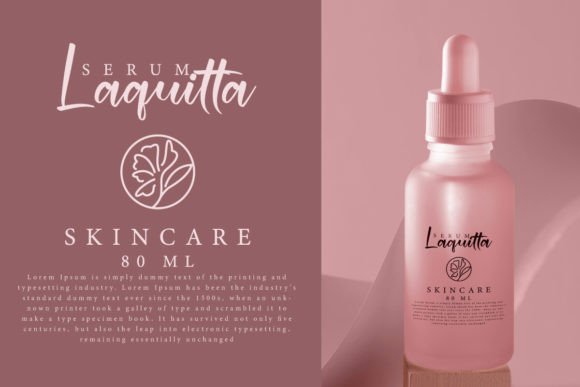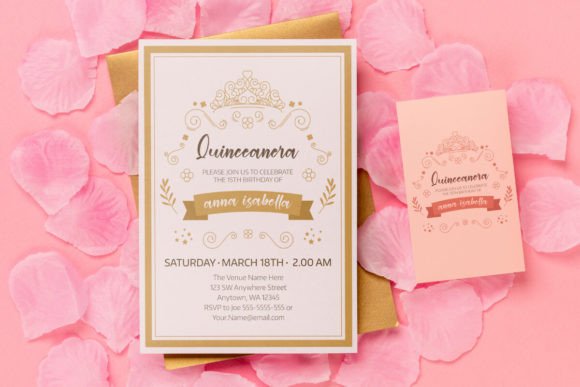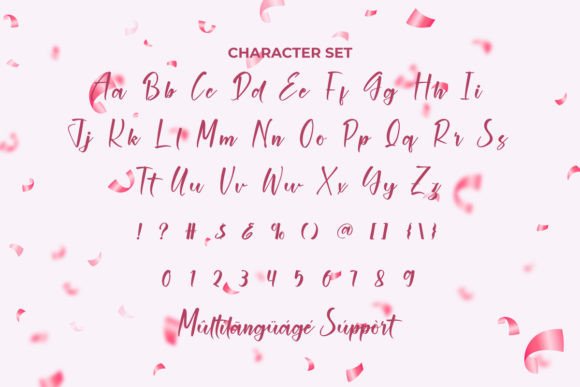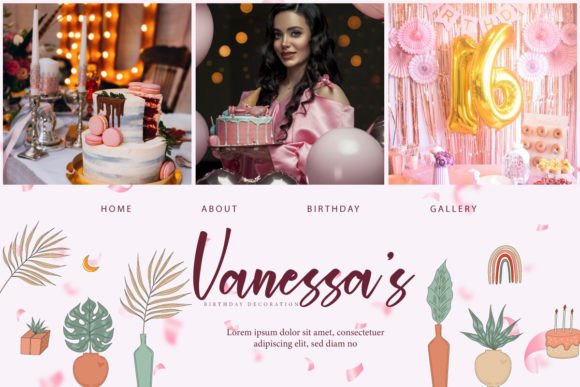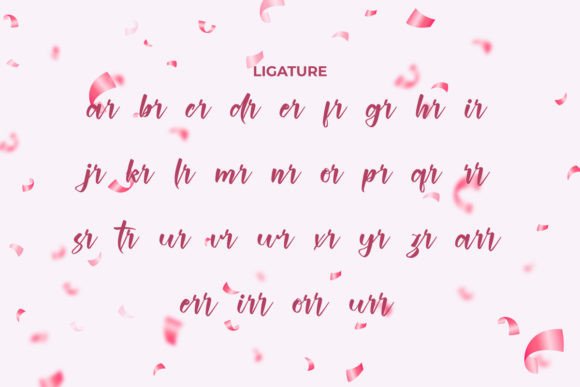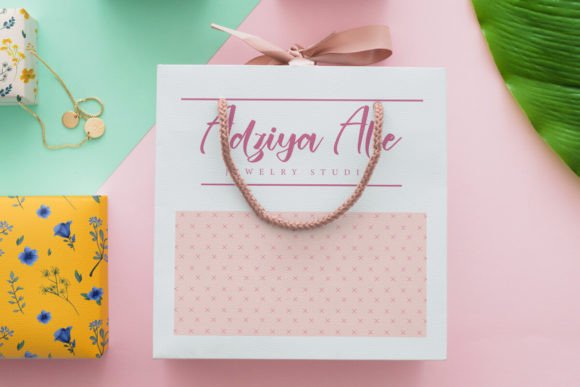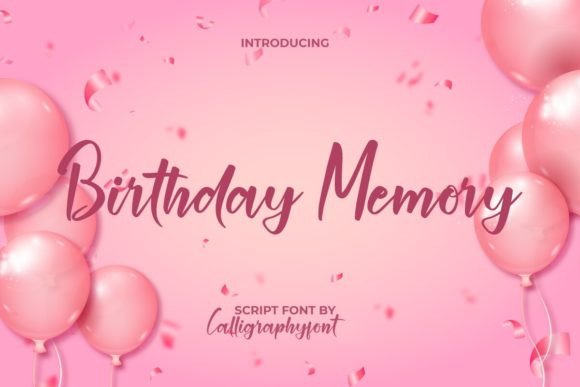
Introducing Birthday Memory Font: A Beautiful Calligraphic Brush Font to Cherish Memories
Are you looking for a font that can evoke emotions and bring back cherished memories? Look no further than the Birthday Memory Font, a stunning calligraphic brush font that captures the essence of a birthday party. This casual typography is perfect for designers and crafters who want to add a personal touch to their projects, making it an ideal choice for various industries.
What is Birthday Memory Font?
Birthday Memory Font is a beautifully crafted calligraphic brush font that takes inspiration from the joy and excitement of a birthday celebration. Its unique and elegant design makes it perfect for creating stunning visual content that resonates with your audience. The font’s casual and friendly vibe can remind us of our great memories, making it an excellent choice for projects that require a personal touch.
Perfect for Various Industries
The versatility of Birthday Memory Font makes it suitable for a wide range of industries, including:
• Accessories: Add a touch of elegance to your accessory designs with this beautiful font.
• Birthday Decoration: Create stunning birthday decorations, such as banners, garlands, and cards.
• Event Organizing: Use the font to create invitations, programs, and other event materials.
• Fashion Brand: Add a personal touch to your fashion brand’s marketing materials, such as brochures, posters, and social media graphics.
• Florist: Create beautiful floral arrangements and advertisements with this lovely font.
• Furniture: Use the font to create stunning furniture designs, such as wooden signs and decorative boxes.
• Gift Store: Add a touch of elegance to your gift store’s packaging and marketing materials.
• Handicrafts: Create unique and personalized handicrafts, such as candles, jewelry, and home decor items.
• Jewelry: Use the font to create stunning jewelry designs, such as custom engravings and packaging.
• Printing: Create beautiful prints, such as posters, flyers, and business cards.
• Publishing: Use the font to create stunning book covers, magazines, and other publications.
• Real Estate: Add a personal touch to your real estate marketing materials, such as brochures, posters, and website graphics.
• Restaurant: Create stunning menus, flyers, and social media graphics with this lovely font.
• Skincare: Use the font to create beautiful packaging and marketing materials for your skincare products.
• Spa Salon: Create a relaxing and calming atmosphere with this elegant font, perfect for spa and salon marketing materials.
Why Choose Birthday Memory Font?
There are many reasons why Birthday Memory Font is an excellent choice for designers and crafters:
• Unique and Elegant Design: The font’s calligraphic brush design makes it stand out from other fonts, adding a touch of elegance to your projects.
• Versatile: The font’s casual and friendly vibe makes it suitable for various industries and projects.
• Easy to Read: The font is clear and easy to read, making it perfect for body text and headings.
• Customizable: You can customize the font to fit your project’s needs, such as adjusting the size, color, and style.
Tips for Using Birthday Memory Font
Here are some tips for using Birthday Memory Font in your projects:
• Use it as a Headline Font: The font’s elegant design makes it perfect for headlines and titles.
• Pair it with Other Fonts: You can pair Birthday Memory Font with other fonts to create a unique and visually appealing design.
• Adjust the Font Size and Color: Experiment with different font sizes and colors to create a design that suits your project’s needs.
• Use it for Branding: Use the font to create a consistent brand identity across your marketing materials.
Font Name Birthday Memory Font
Birthday Memory Font is a beautiful calligraphic brush font that can add a personal touch to your projects. Its unique and elegant design makes it perfect for various industries, from accessories to publishing. With its versatility, ease of use, and customizability, this font is an excellent choice for designers and crafters who want to create stunning visual content. So why not give it a try and see how it can elevate your designs?